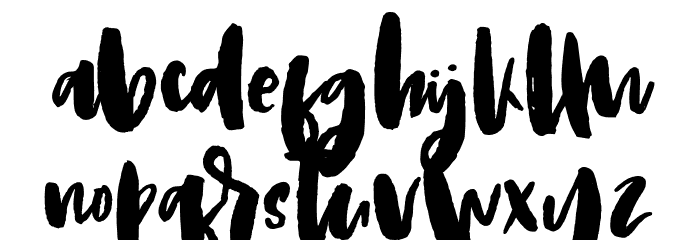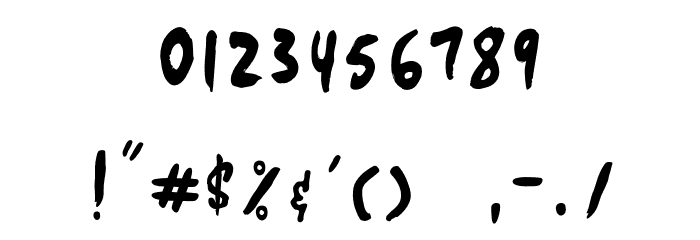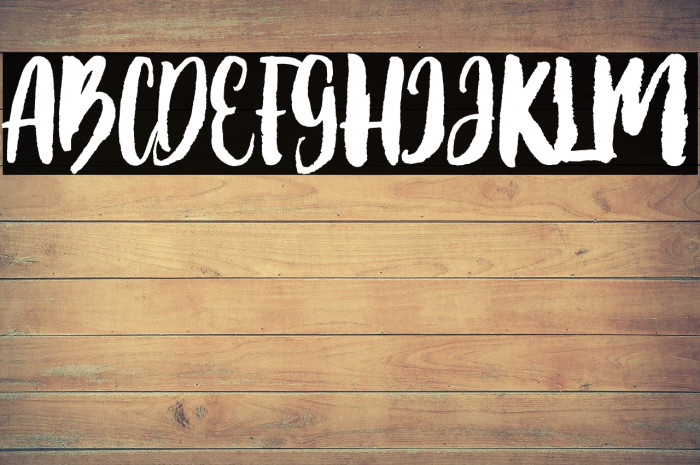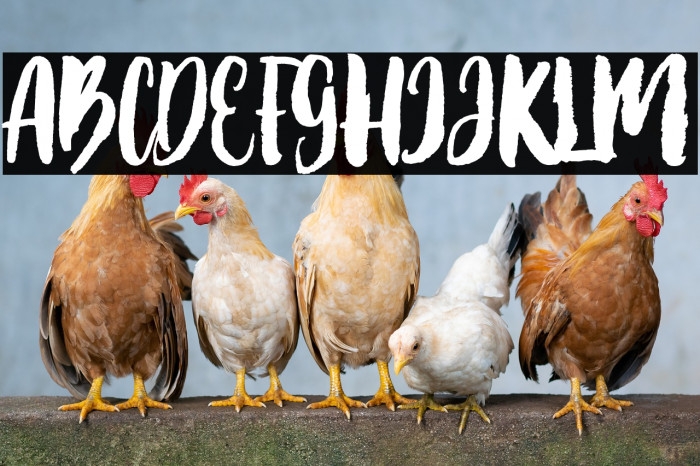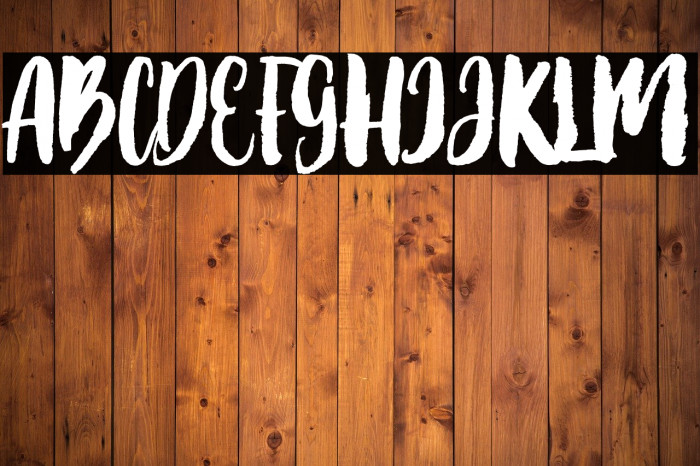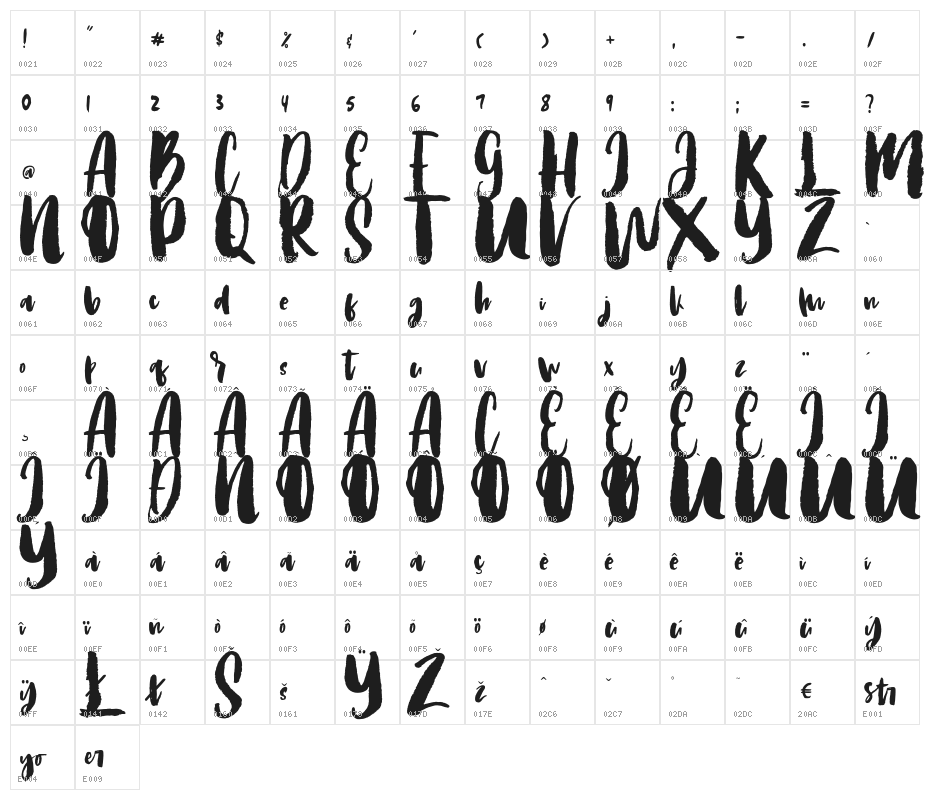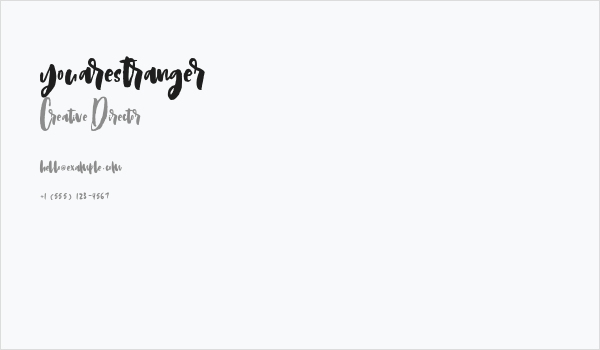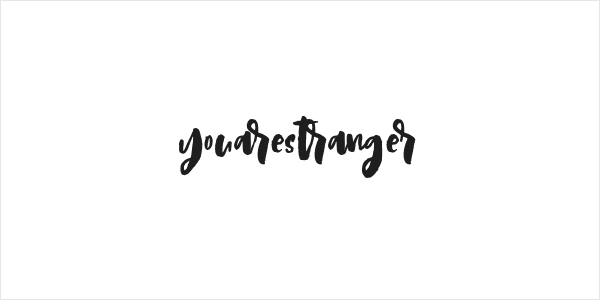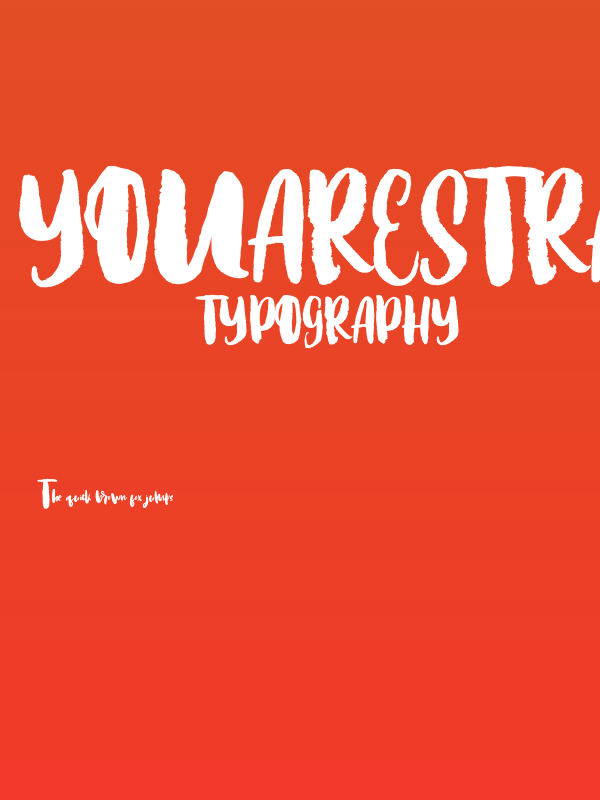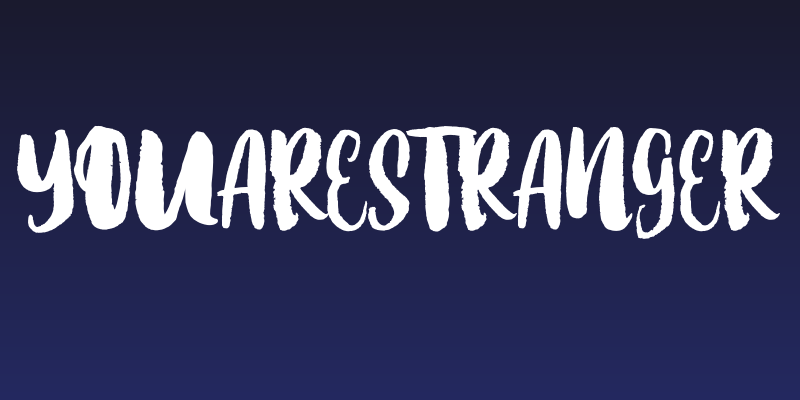
youarestranger Font
This font features a bold, expressive style with a hand-painted appearance. The characters are crafted with a brush-like texture, giving them a dynamic and artistic flair. The uppercase letters are tall and slightly condensed, while the lowercase letters maintain a consistent flow, enhancing the font's organic feel. Numbers and special characters follow the same bold and textured style, ensuring uniformity across all elements. The font's overall look is both modern and artistic, making it suitable for creative projects that require a personal touch.
A bold, brush-style font with a hand-painted, artistic appearance.
- Proposed Projects: Ideal for branding, posters, invitations, and any project needing a creative, personal touch.
- Category: Handwritten
- Overall Style: Modern, Artistic